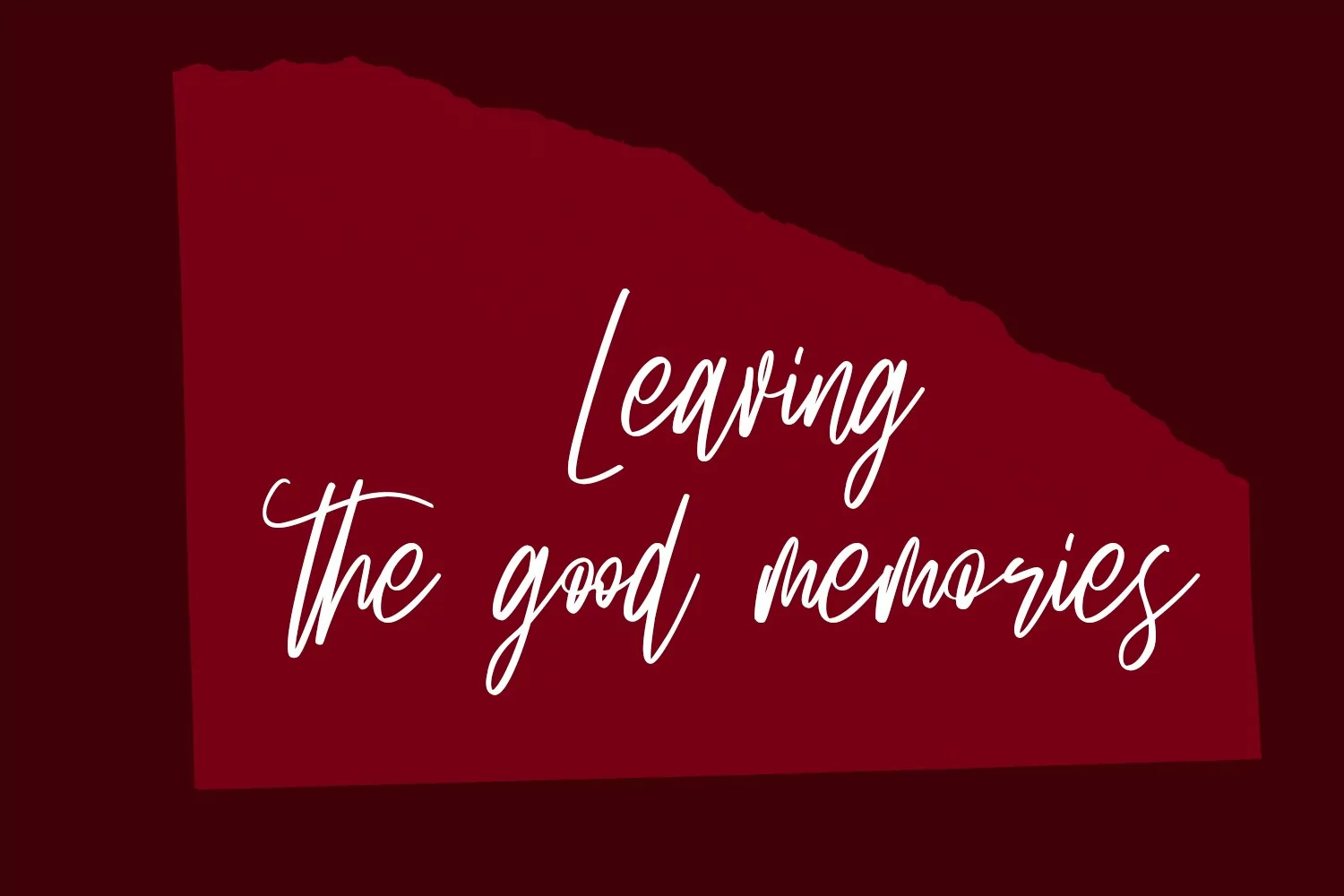
Quiney Loves is a slanted modern signature script font. With regular contrast stroke, fun character with a bit of ligatures and alternates. To give you an extra creative work. Quiney Loves font support multilingual more than 100+ language. This font is good for logo design, Social media, Movie Titles, Books Titles, a short text even a long text letter and good for your secondary text font with sans or serif. Make a stunning work with Quiney Loves font.